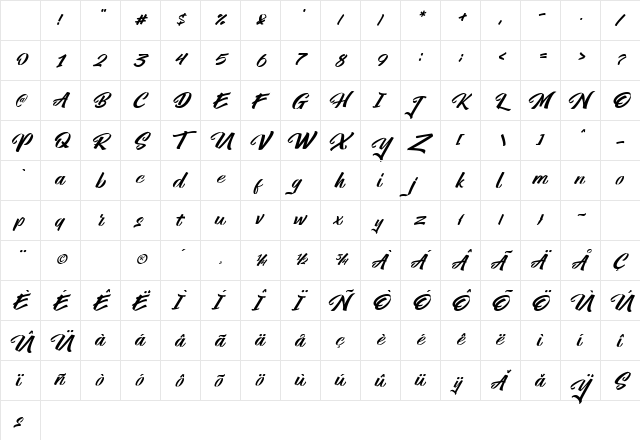
Yambag is a composed and adaptable typeface that performs quietly and consistently across a wide range of design contexts. The slanted form adds forward momentum and visual energy.
Pro Tip: Use Yambag for emphasis, pull quotes, and subheadings where its slanted energy can add rhythm to the layout.